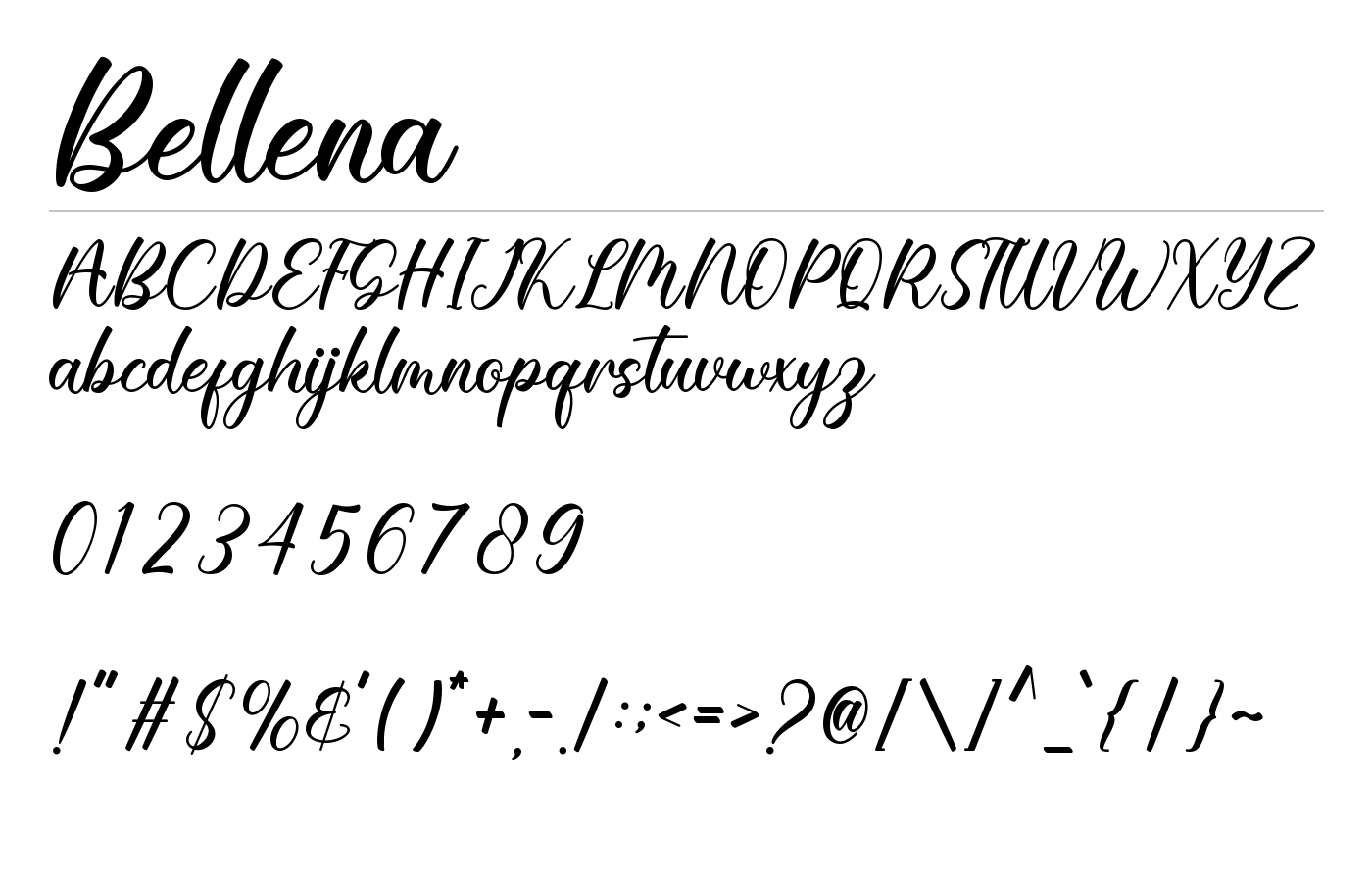
Bellena is a stylish script font with a smooth and flowing design, characterized by its delicate strokes and elegant curves. It offers both upper and lowercase letters with a handwritten feel, making it perfect for creative branding, invitations, and feminine or romantic themes where an approachable yet refined look is desired. This font works well in headlines and decorative text, adding a touch of grace and personality to any project.
Bellena Font
About Bellena Font